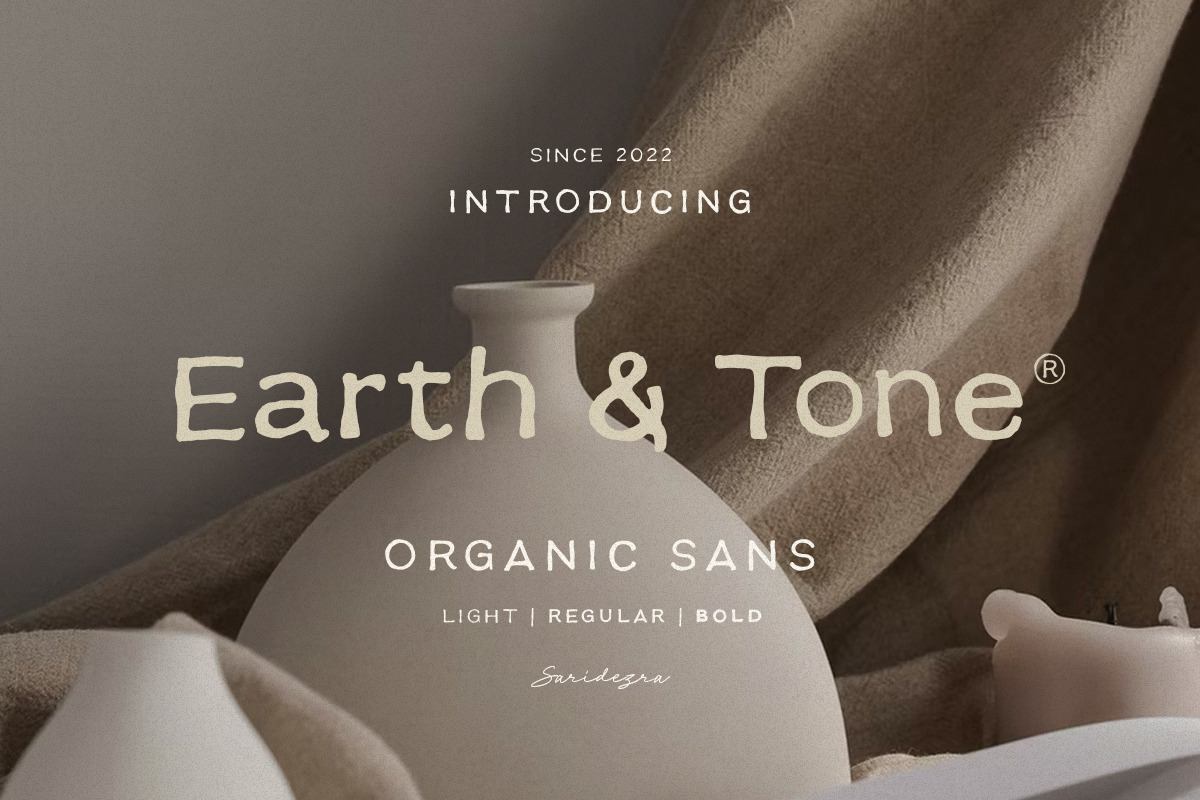
Introducing Earth Tone Organic Sans Family Free Download, a handmade font family that embodies natural and organic aesthetics. This collection includes three weights: Light, Regular, and Bold, each featuring a complete character set with multilingual support, numbers, and symbols. Earth Tone's natural curves and imperfections make it ideal for eco-friendly branding, wellness products, and earthy designs. Download Earth Tone Organic Sans Family Free Download to explore its features in personal projects. For commercial use, please ensure you purchase the appropriate license. Enhance your designs with the authentic charm of Earth Tone Organic Sans Family Free Download